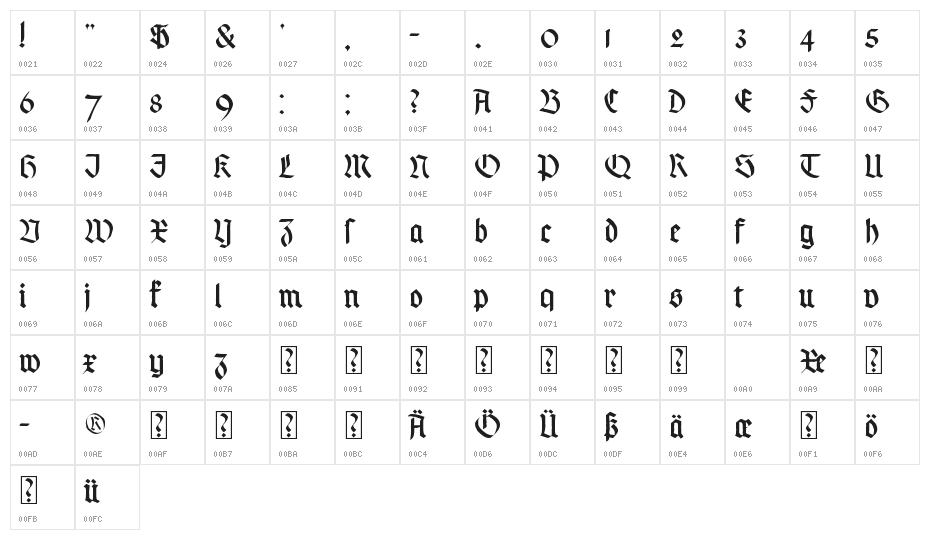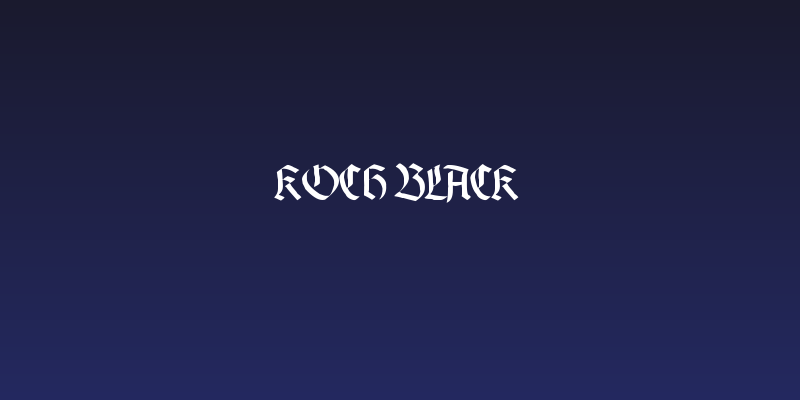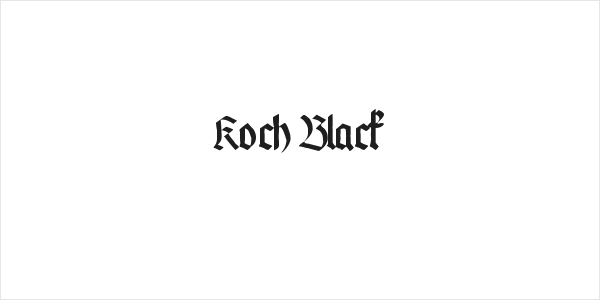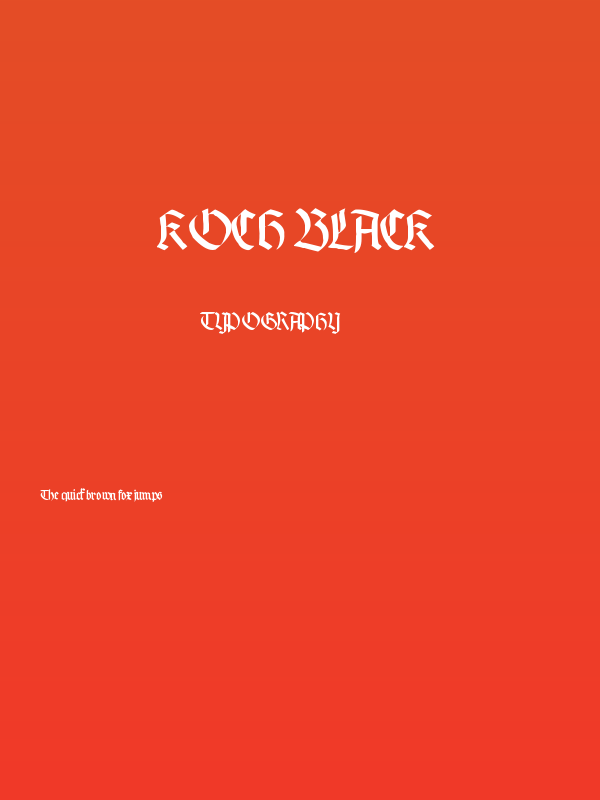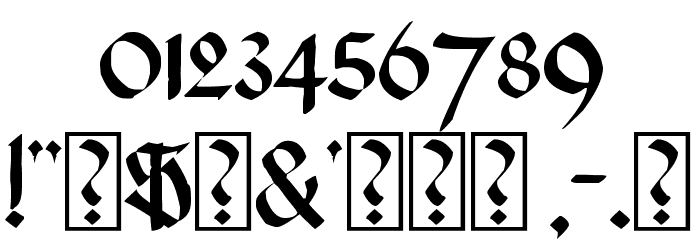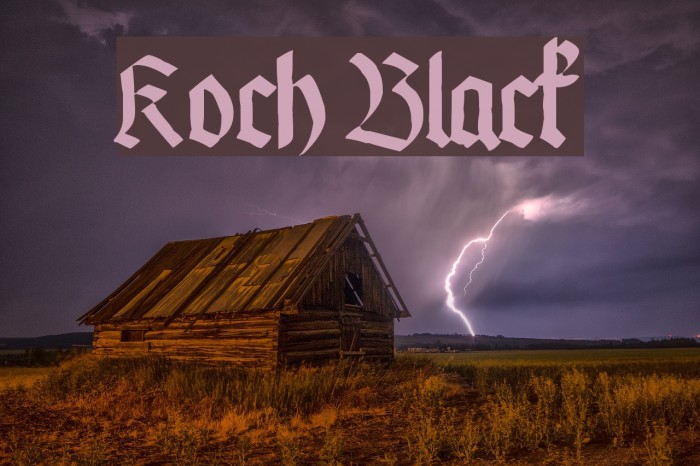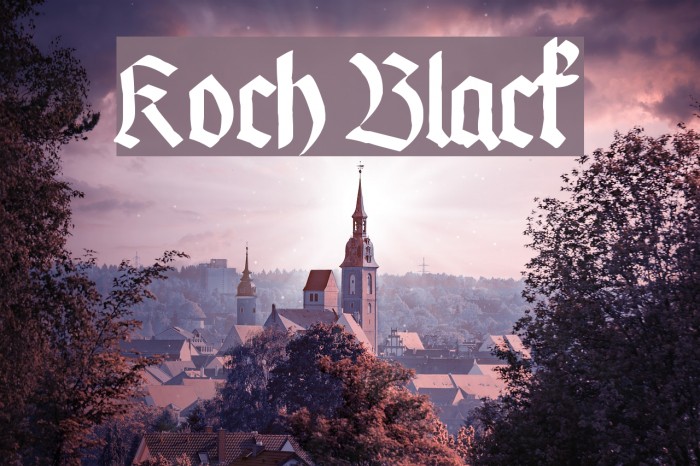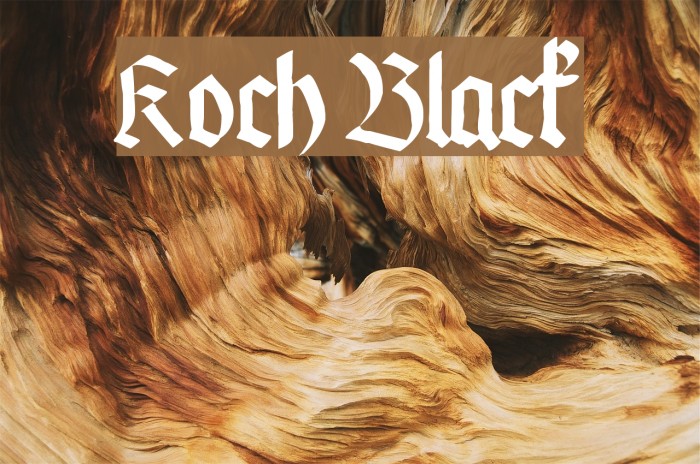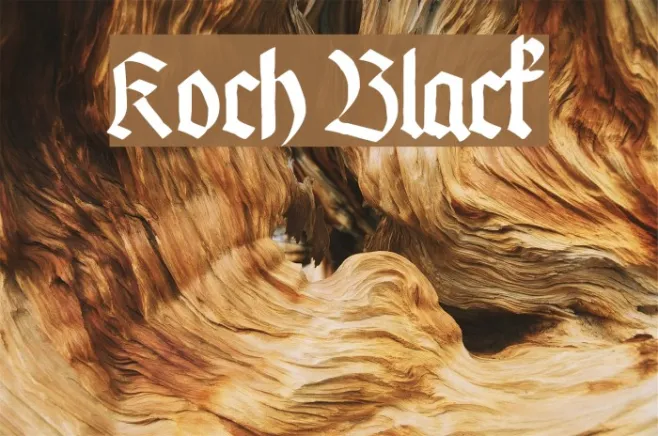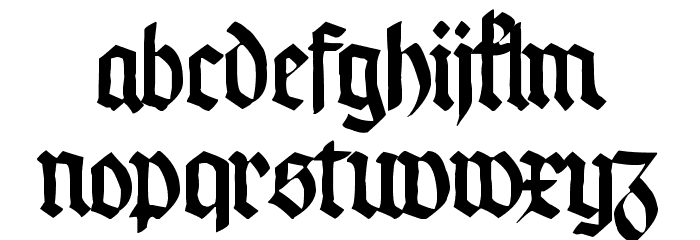
Koch Black Font
This font exhibits a classic blackletter style, characterized by its intricate and ornate letterforms. The strokes are bold and angular, with sharp edges and a high level of detail, reminiscent of traditional calligraphy. The uppercase letters are particularly elaborate, with distinctive flourishes and a strong vertical emphasis. The lowercase letters maintain the same level of detail, creating a cohesive and visually striking appearance. The numerals and special characters are designed to match the overall aesthetic, ensuring consistency across all text elements. This font's historical and decorative nature makes it ideal for projects that require a touch of elegance and tradition.
| Proposed Projects | Suitable for historical documents, wedding invitations, certificates, and branding that requires a traditional or gothic touch. |